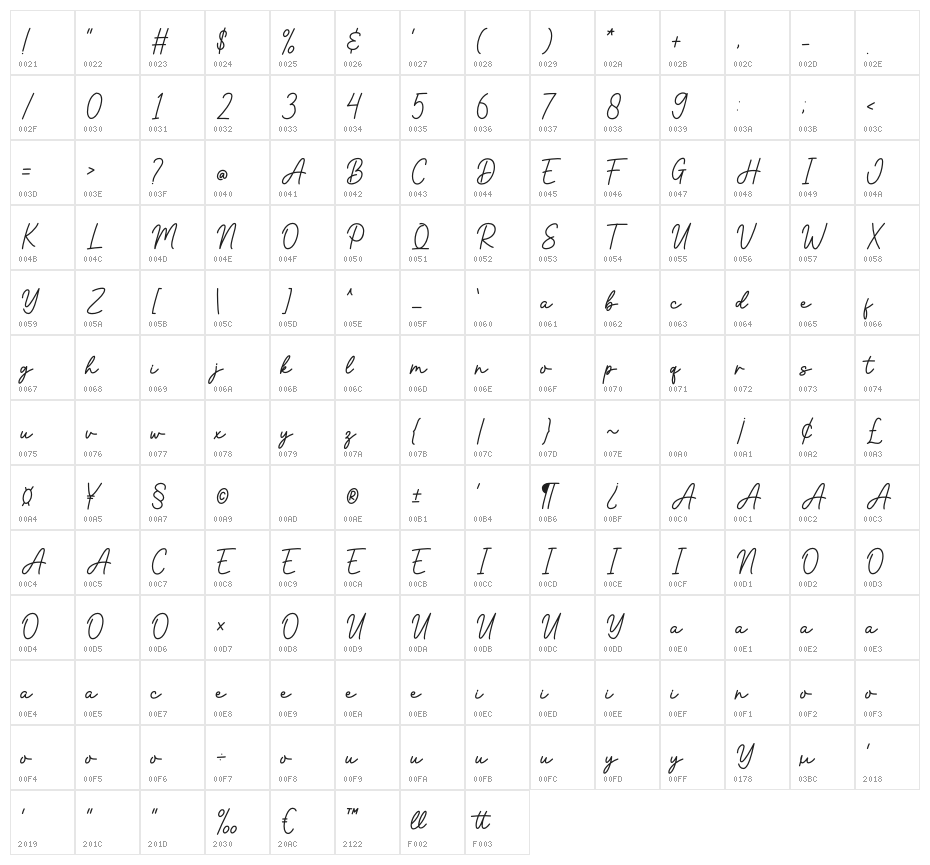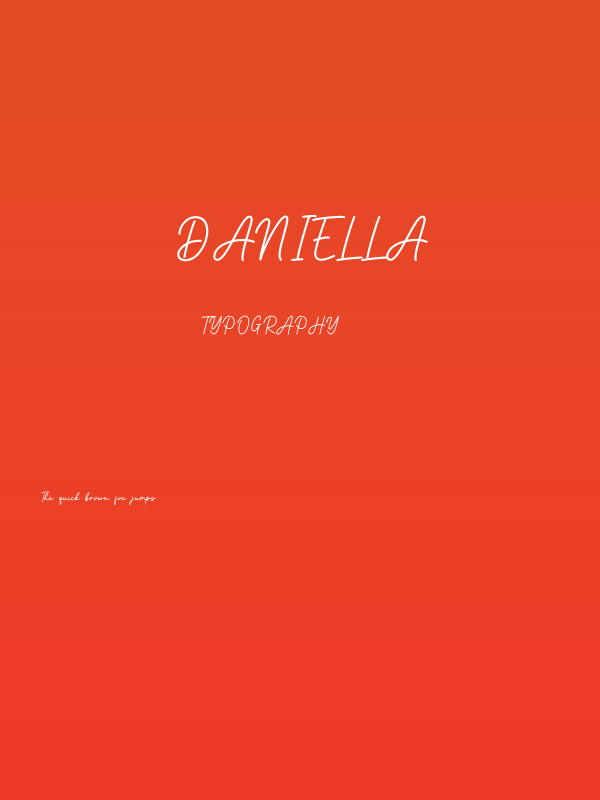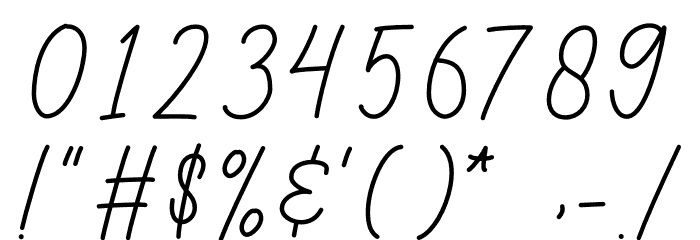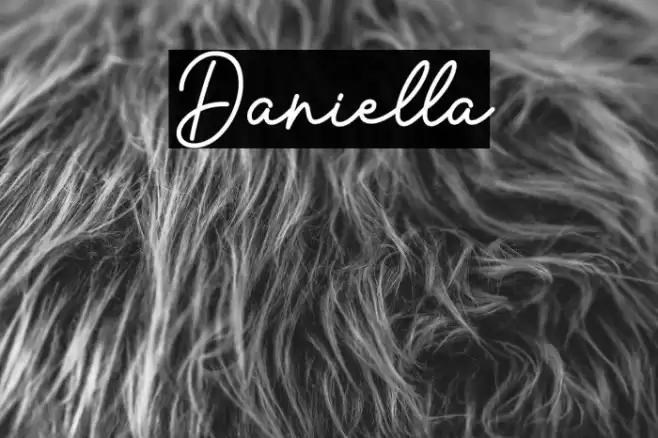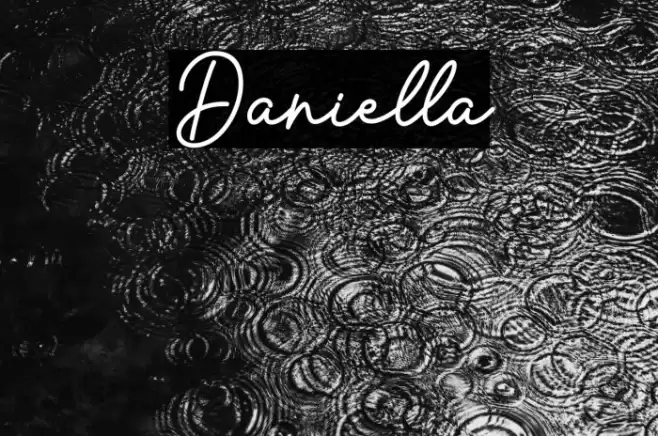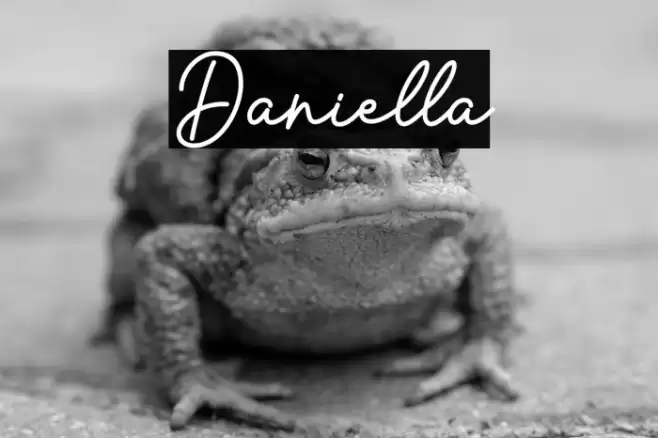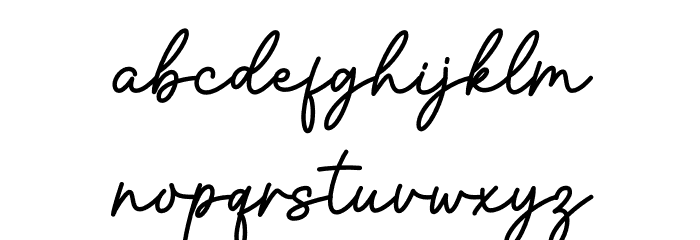
Daniella Font
Daniella Description
This font features a flowing, cursive style that mimics elegant handwriting. The uppercase letters are tall and slightly slanted, with smooth curves and a consistent stroke width. The lowercase letters maintain a similar style, offering a harmonious blend between characters. Numbers are clear and legible, maintaining the cursive theme with slight slants and rounded edges. Special characters are designed to complement the overall aesthetic, ensuring a cohesive look across all symbols. This font exudes a sense of sophistication and personal touch, making it ideal for projects that require a handwritten feel.
| Overall Style | Elegant, Handwritten |
| Use Case | Logos, Invitations, Personal Branding |
| Proposed Projects | Ideal for wedding invitations, personal branding, greeting cards, and elegant stationery. |